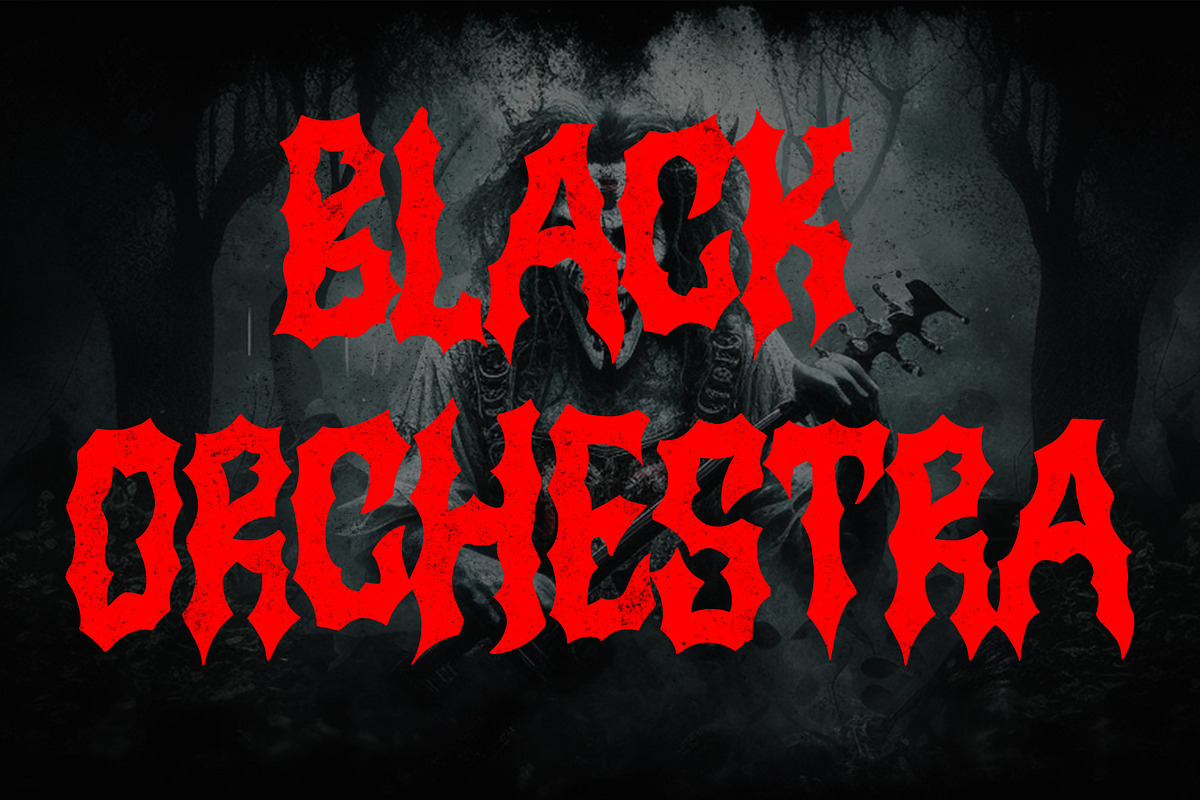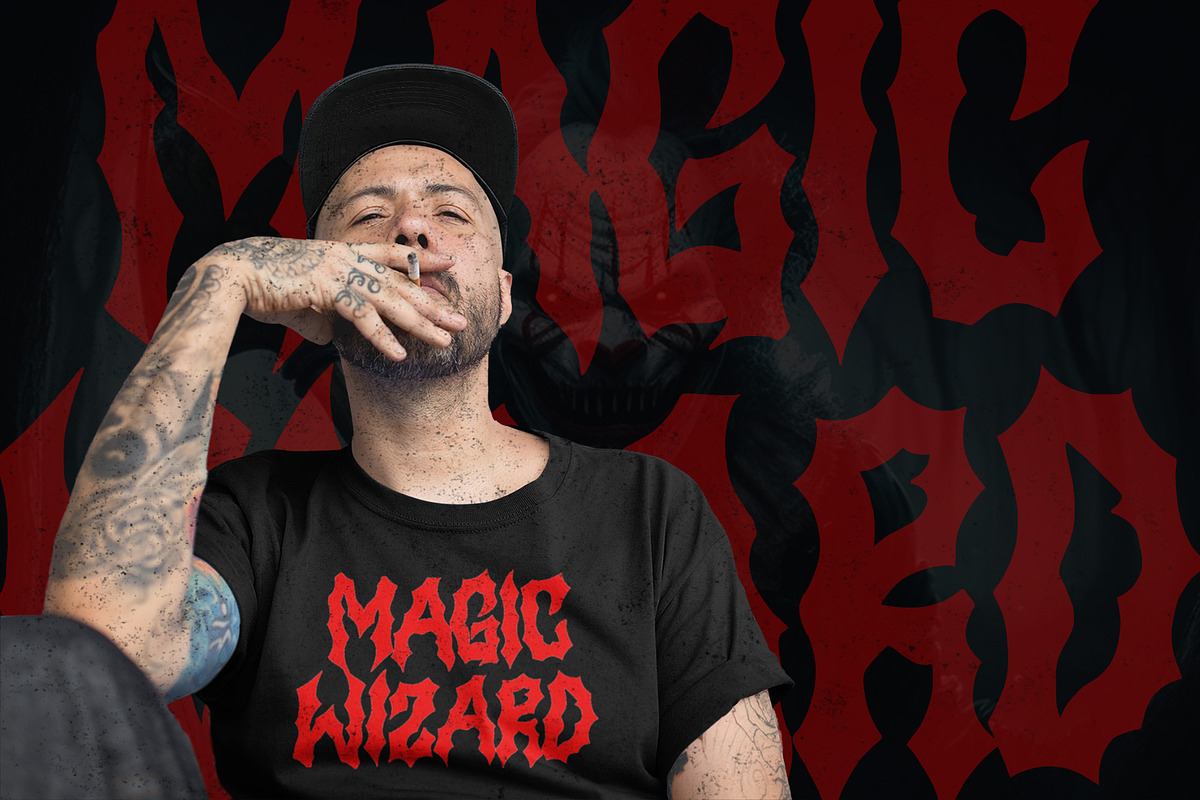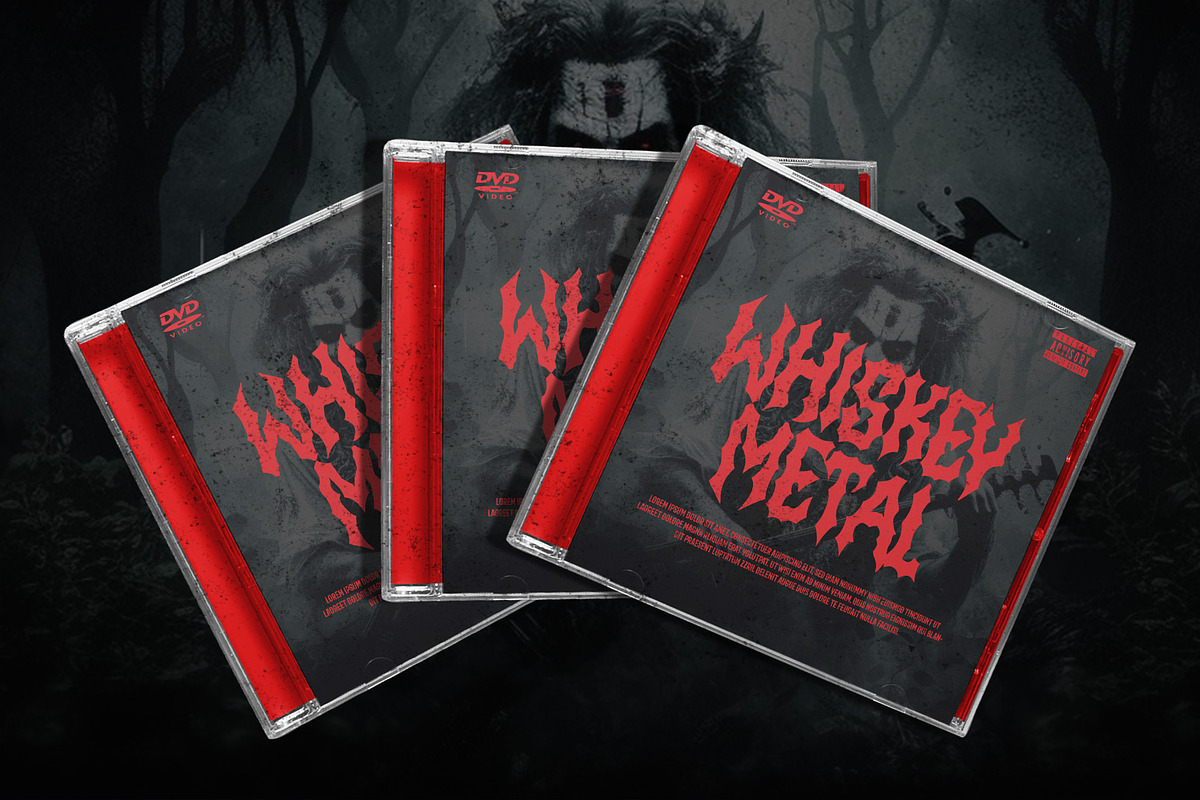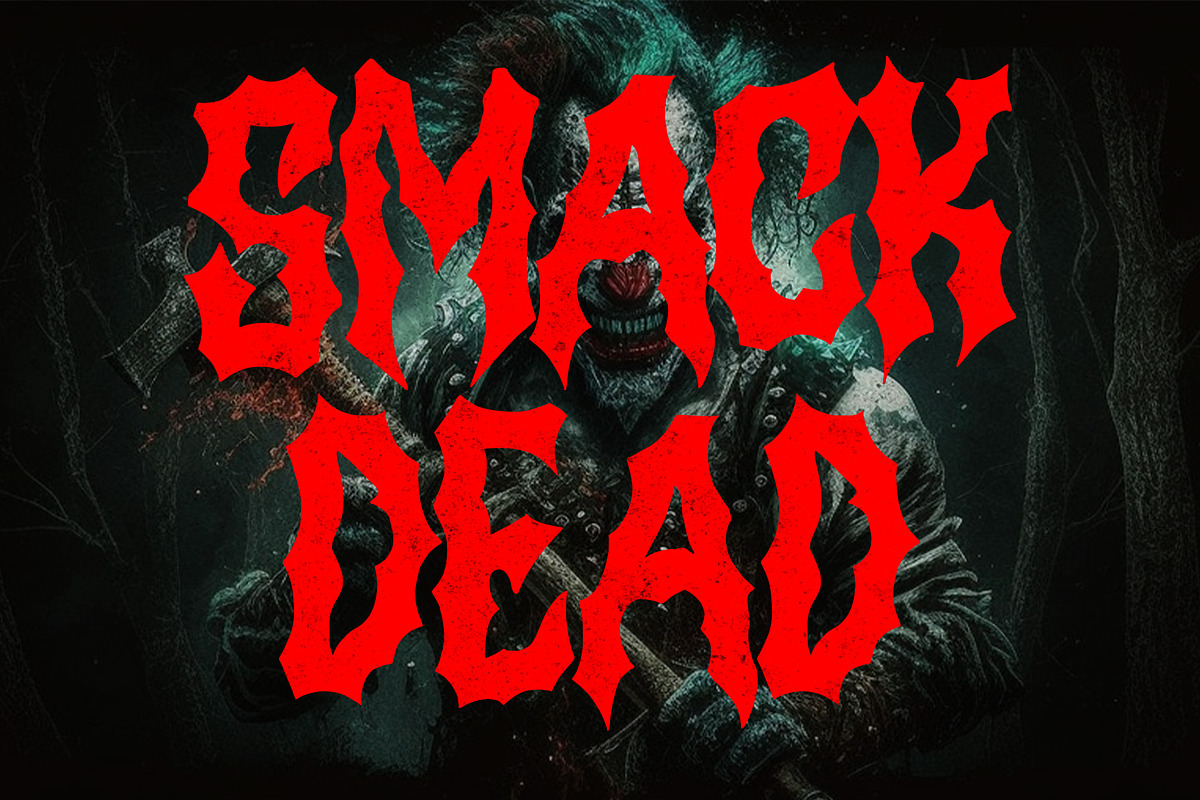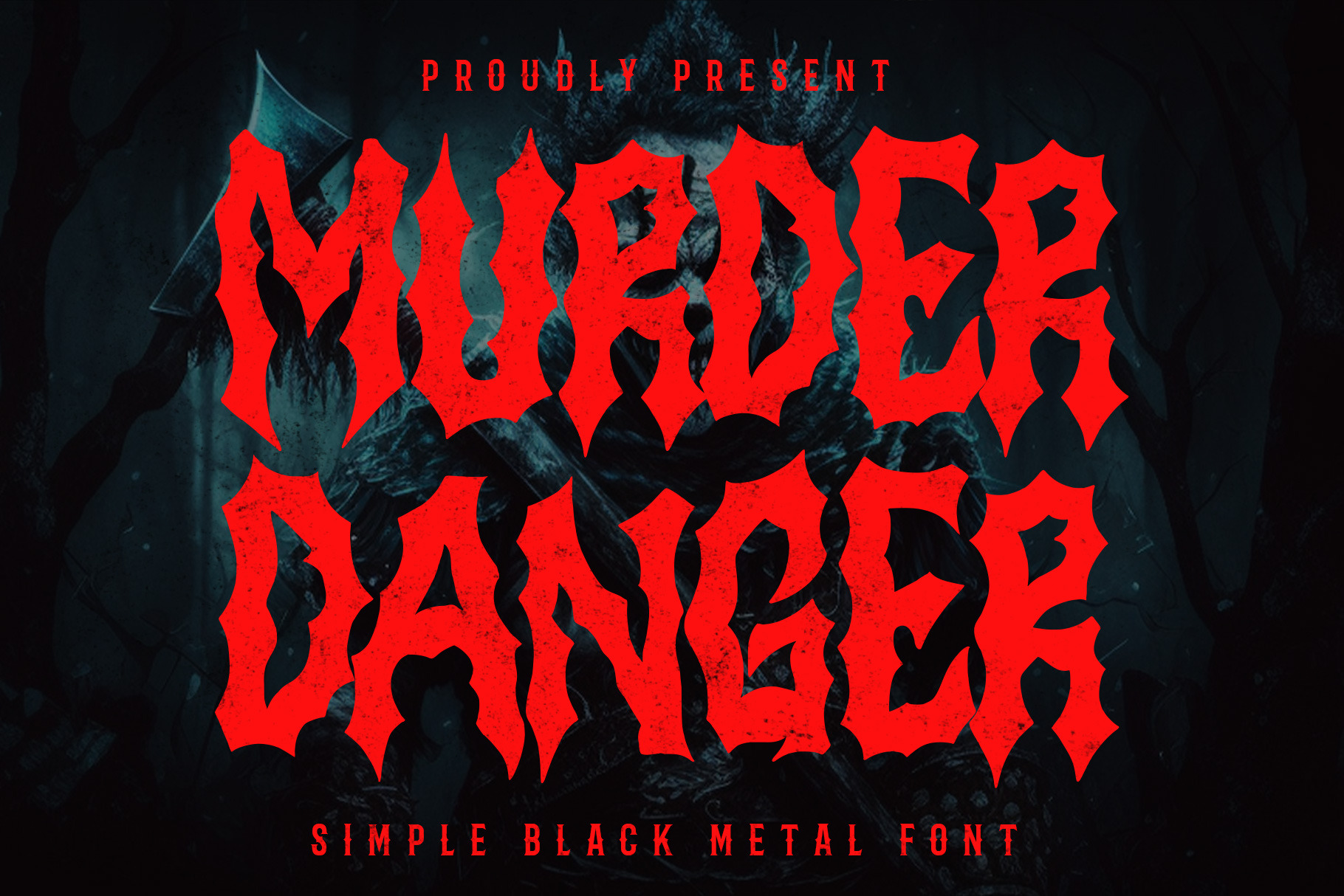
Murder Danger - Horror Font
Unleash the fear with Murder Danger Font, our eerie and menacing font that will send shivers down your spine. With its twisted and sharp design, Murder Danger captures the essence of horror and suspense, perfect for creating designs that will make your audience's blood run cold.